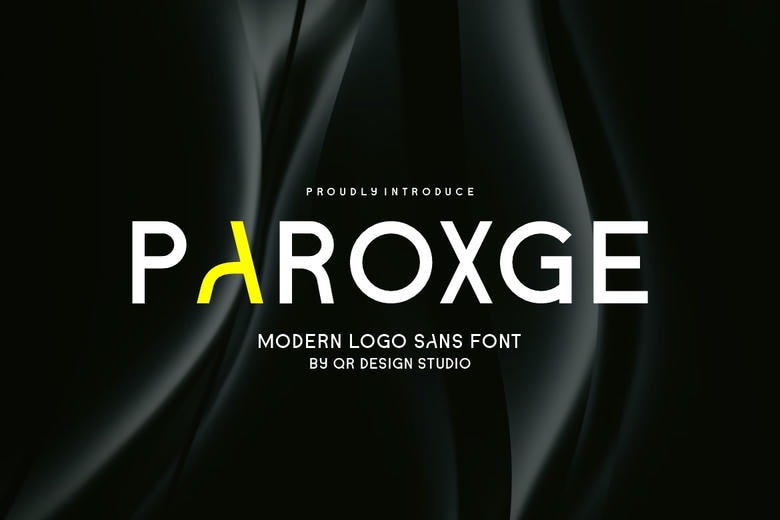
Paroxge Font
Paroxge is an elegant and bold sans serif font. Fall in love with its incredibly versatile style and use it to create gorgeous wedding invitations, beautiful stationary art, eye-catching social media posts, and much more!
Paroxge Sans Serif Font